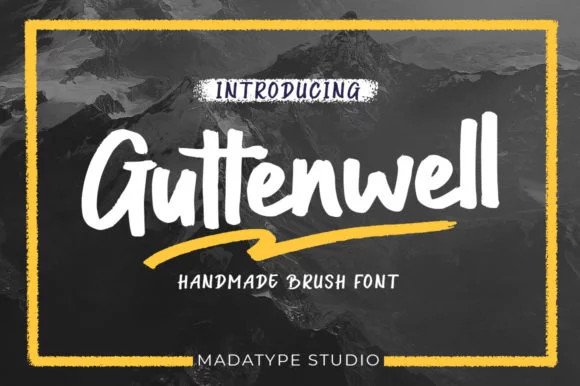
Guttenwell Bold Script Font
Say hello to Guttenwell Font. This is a bold script font. This fun font has cute, cute, round, unique and fancy font characters. Made specifically with attention to appearance, aims to give happiness to everyone who uses it! It’s designed and shared by Madatype Studio. It’s an incredible script font that will add a bold feel to any design project! With a style like this, this font will be suitable in use for comic, logo’s, branding projects, homeware designs, product packaging, mugs, quotes, posters, shopping bags, logo’s, t-shirts, book covers, name card, invitation cards, greeting cards, and all your other lovely projects.